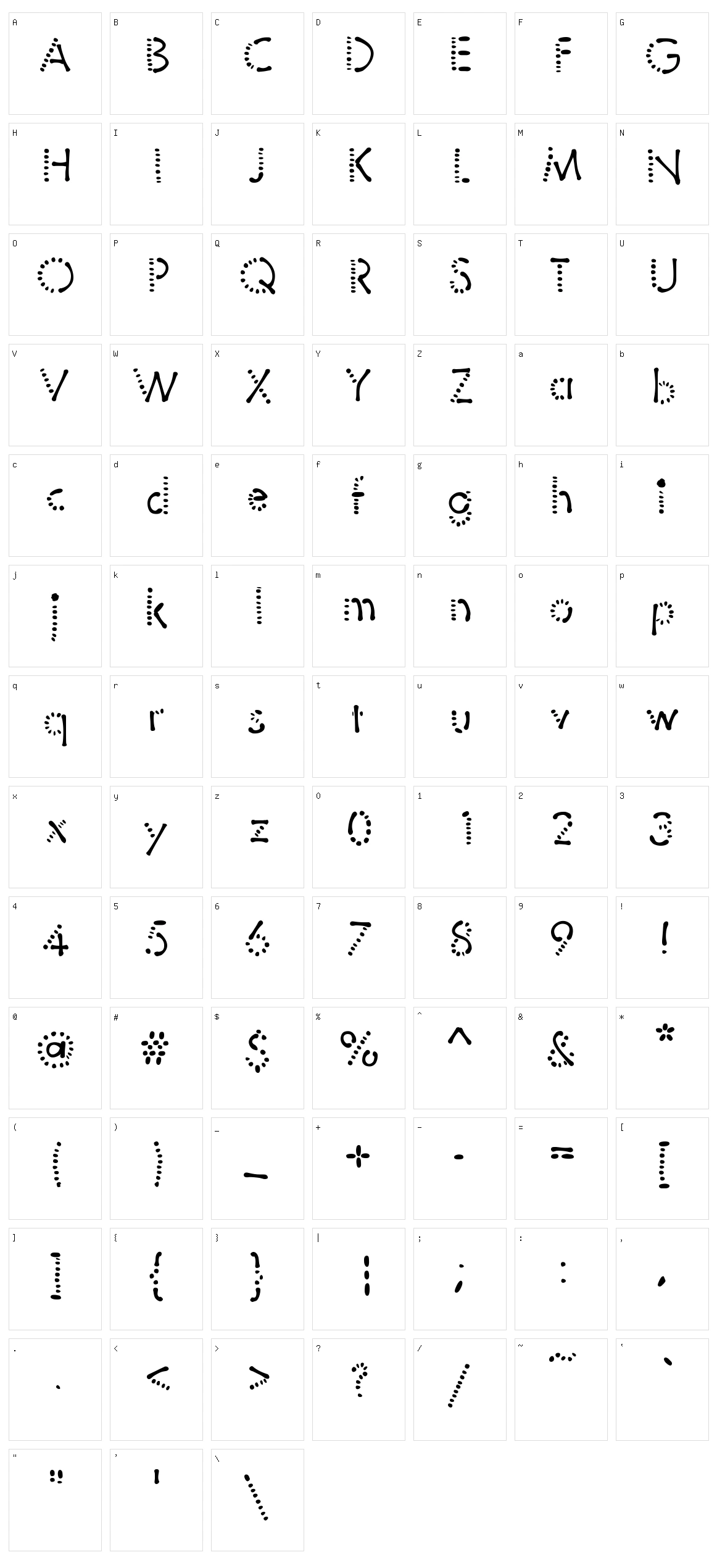
The free font Sticks and Spots is carefully designed by Lionel Pailloncy, showcasing a thoughtful balance of creativity and usability and falls under the Decorative font style. When you download the ZIP file, it contains only 55.12 KB of font files, making it lightweight and quick to download. Please review the license details below to understand permitted usage and distribution rights. If license information is not available, we recommend using this font for personal projects only or contacting the author directly for commercial usage permissions.